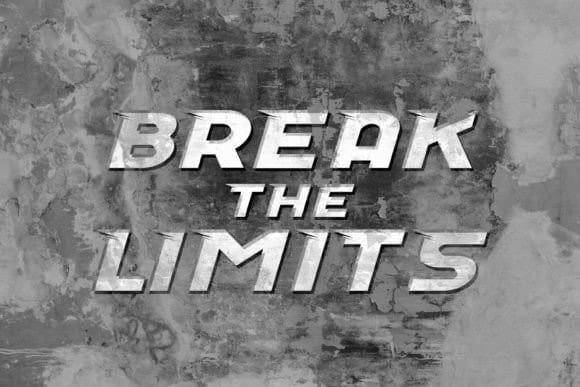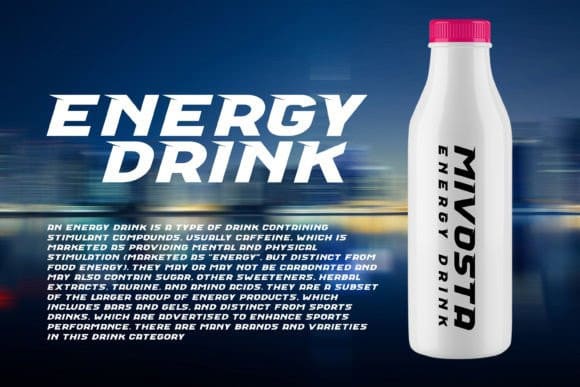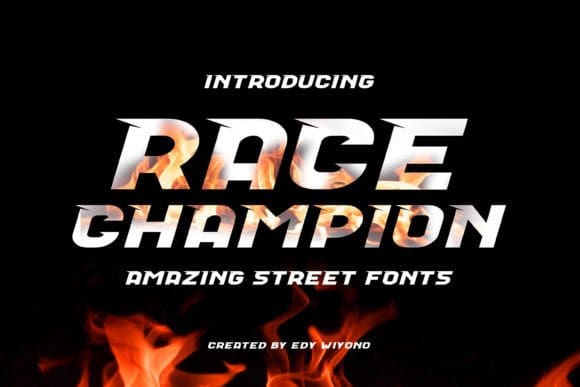
Race Champion Font
Race Champion Font is a bold and distinct display font. It features a modern and futuristic style that will look great on sport or racing related designs, movies, books, flyers, games, posters and much more!